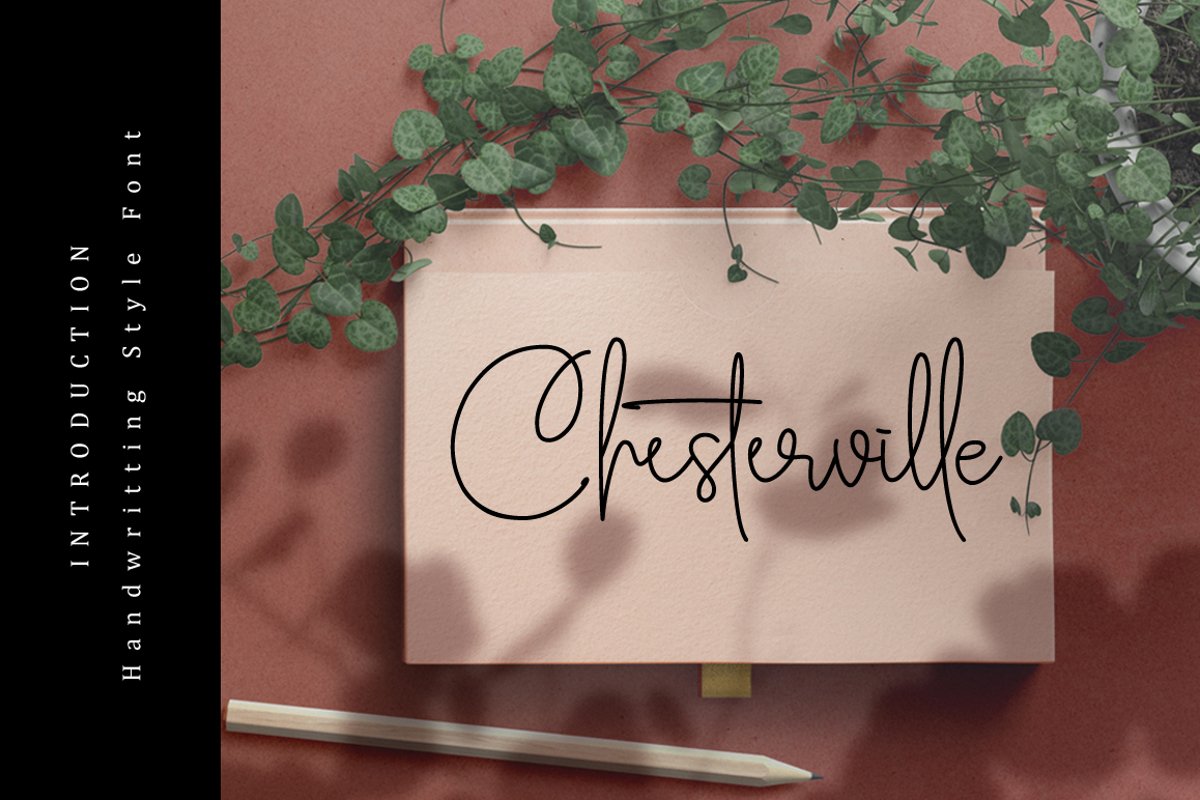
CHESTERVILLE
The Chesterville is an elegant
handwritten font. It has an attractive look which can be used for
branding, logos, invitations, quotes, blogs, and much more!That is a
natural-style font with an addition to the alternative style and
ligatures and you can use it for opentype to make it look more
beautiful.